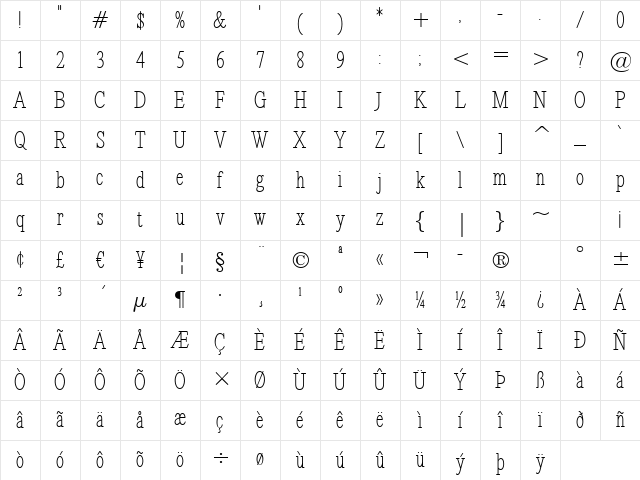
Revelation BTN Cond Regular
Complete Revelation BTN Cond Regular glyph index. Displaying only characters natively supported by Revelation BTN Cond Regular font.
Design Context for Revelation BTN Cond
Revelation BTN Cond is a composed and adaptable typeface that performs quietly and consistently across a wide range of design contexts. Its narrow stance lets it pack a punch even in space-constrained designs.